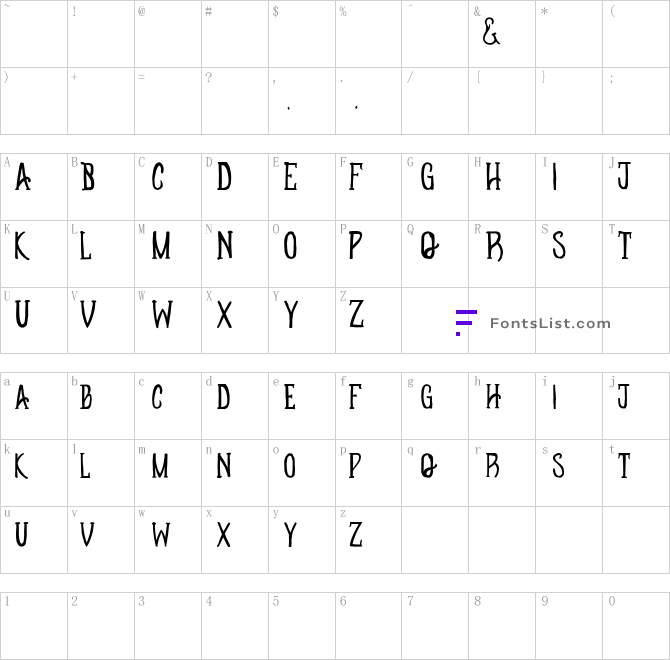
- Font Name:Apotheque
- Subfamily:BonezDesignz-FieClarke: Apotheque Hand: 2015
Apotheque-Hand.ttf is a very beautiful artistic font, Apotheque-Hand.ttf is widely used in the design and printing of various books and pictures,Apotheque-Hand.ttf has a strong visual impact,Apotheque-Hand.ttf is a commonly used font in newspapers, magazines and books, and is used in posters, e-commerce Poster design, store design, logo design, font design and other fields.Apotheque-Hand.